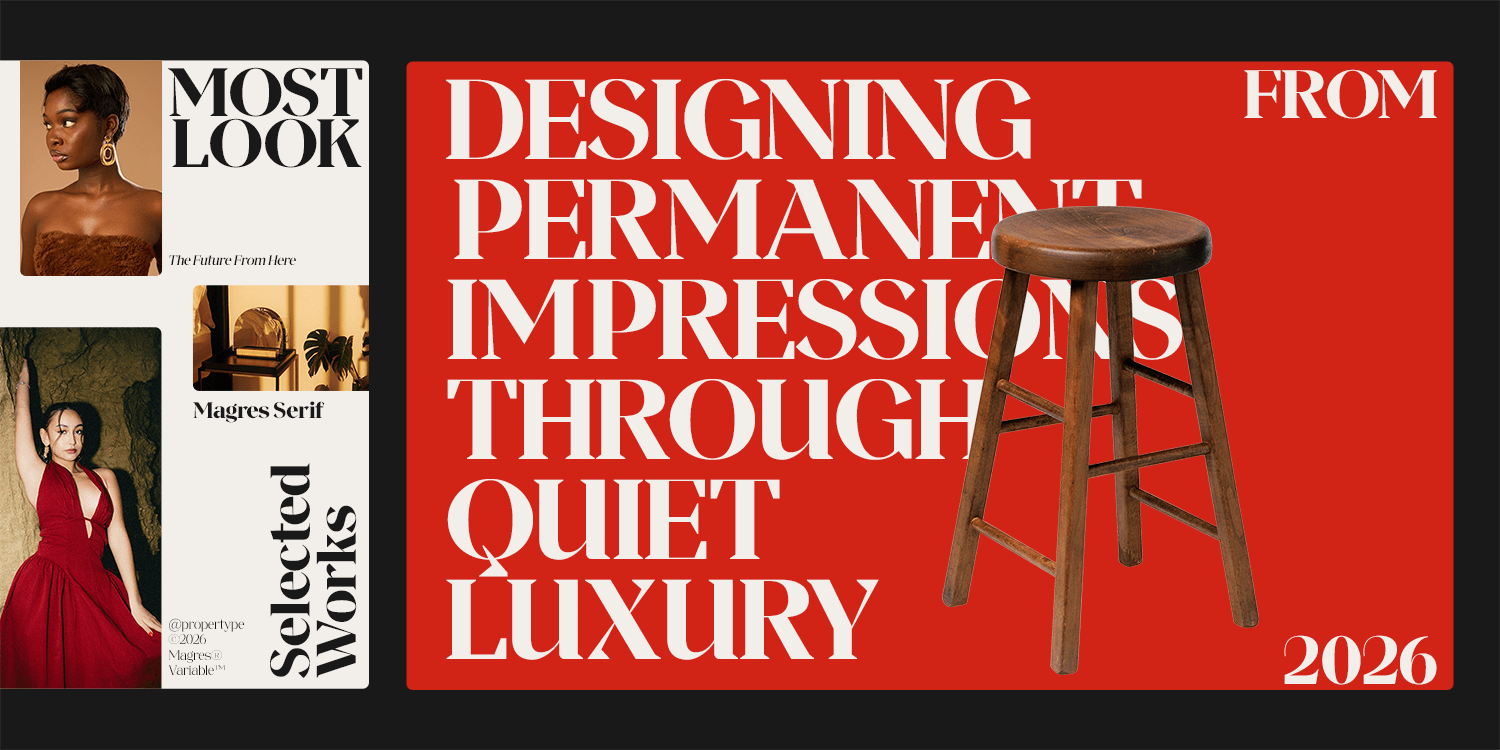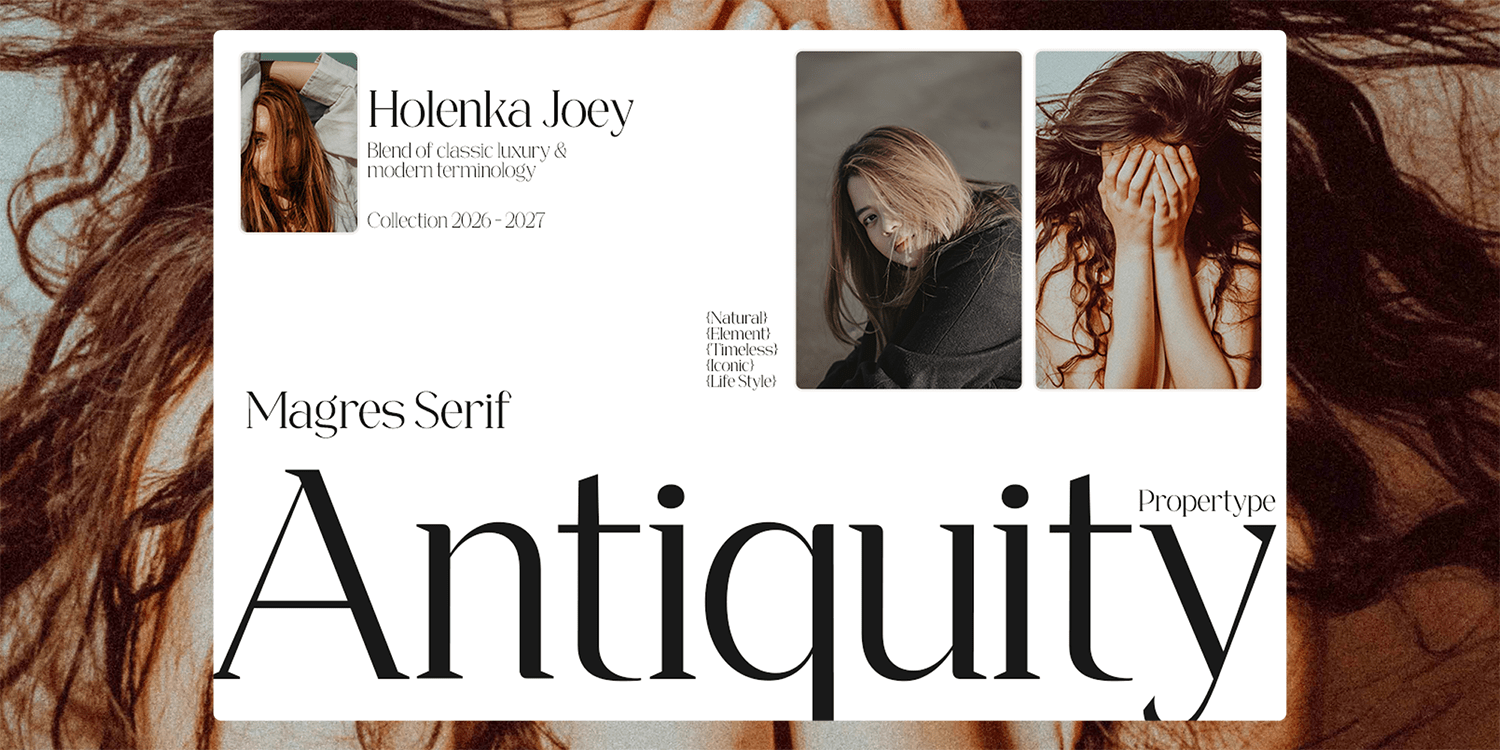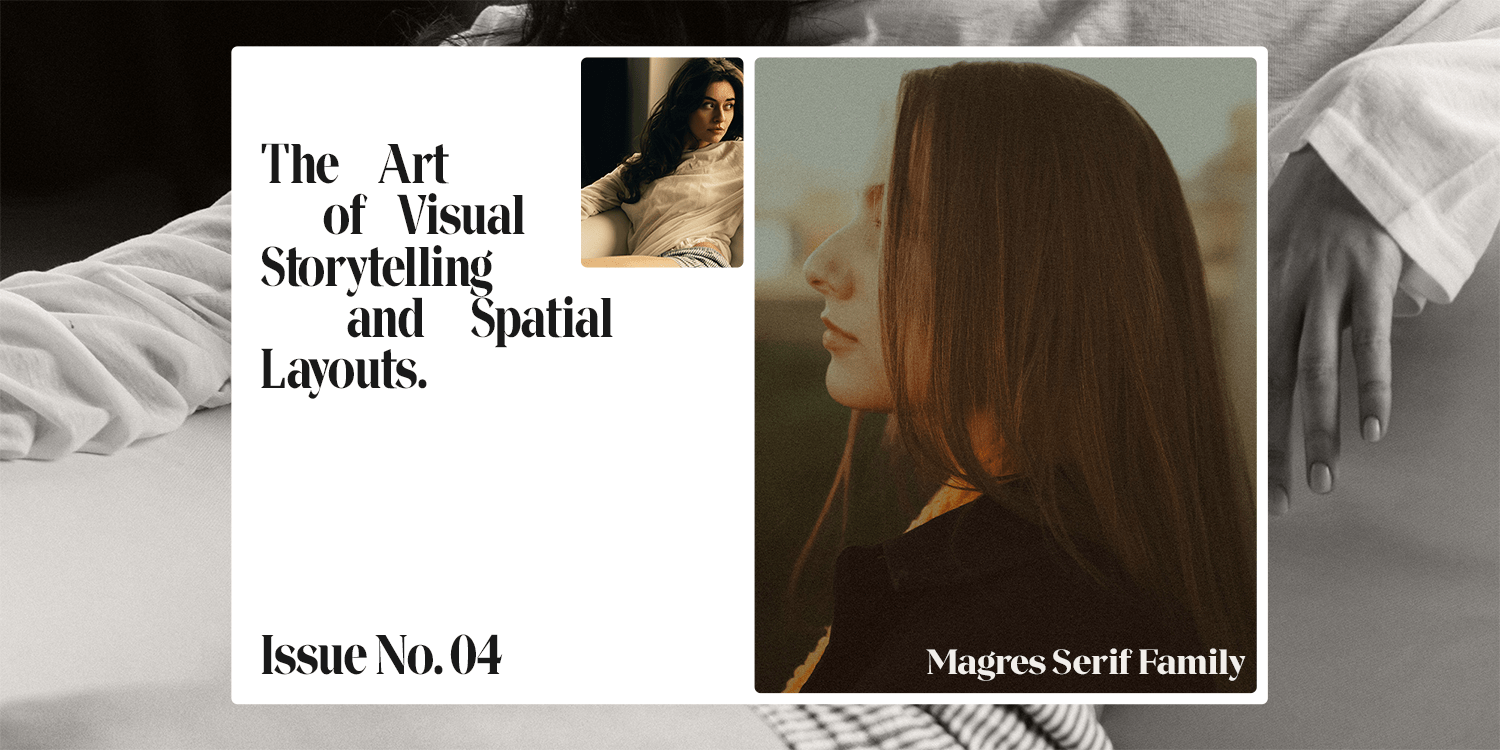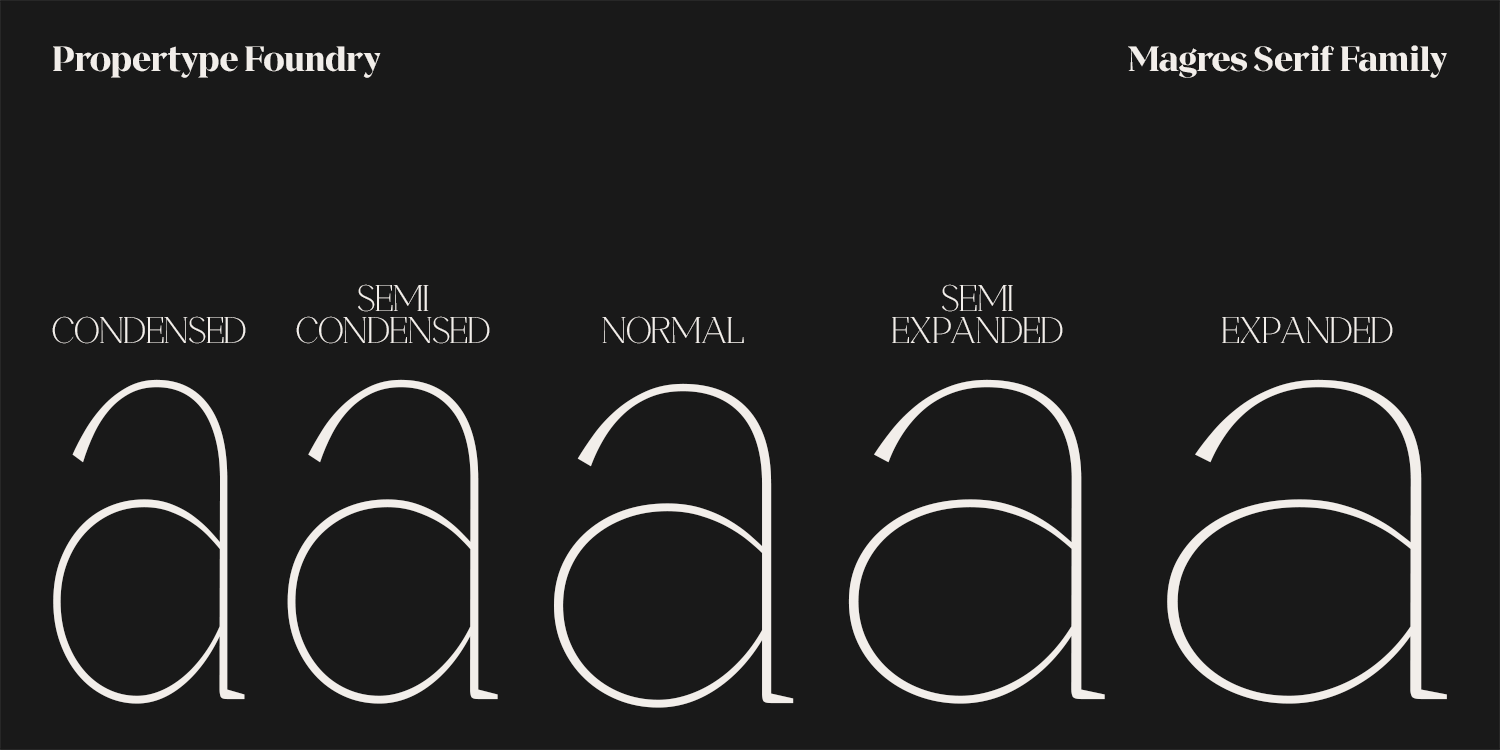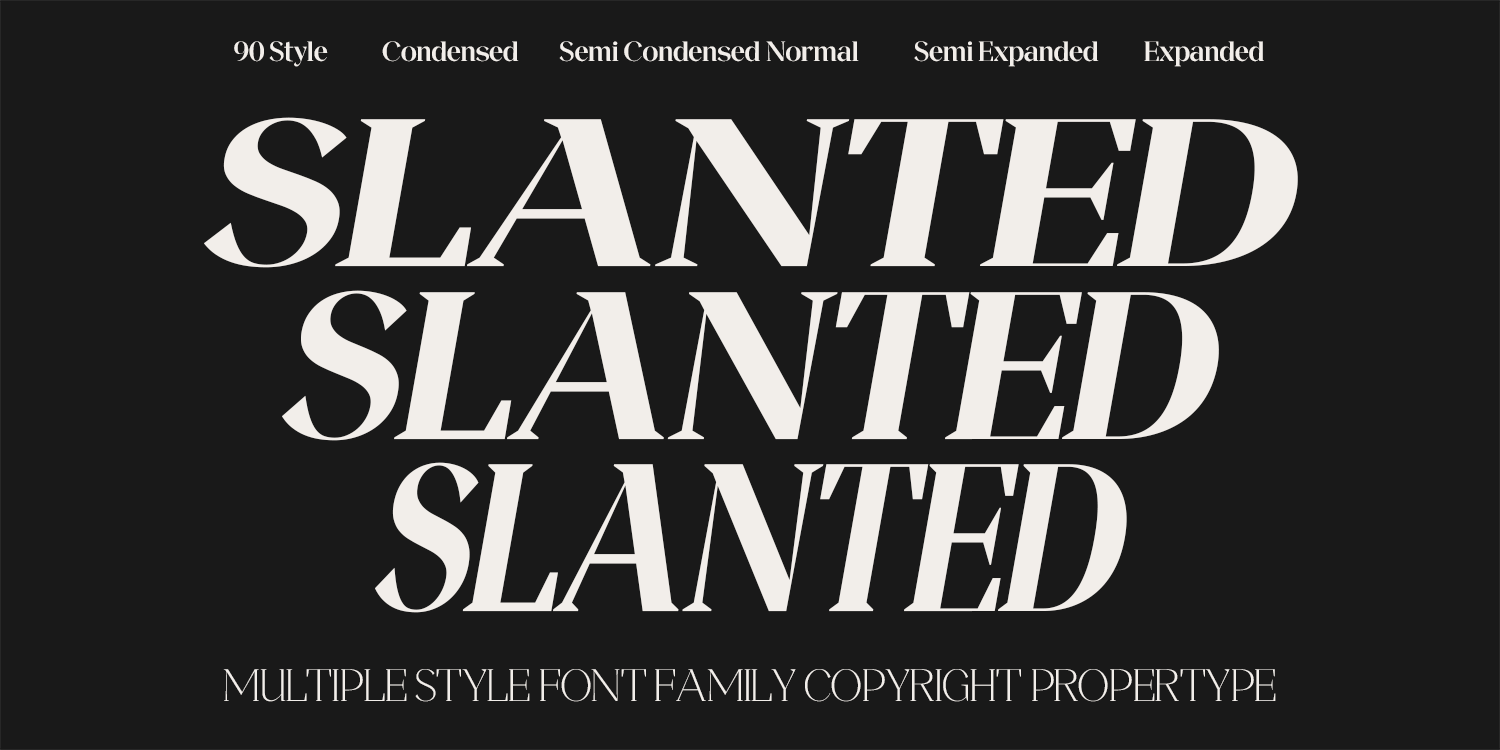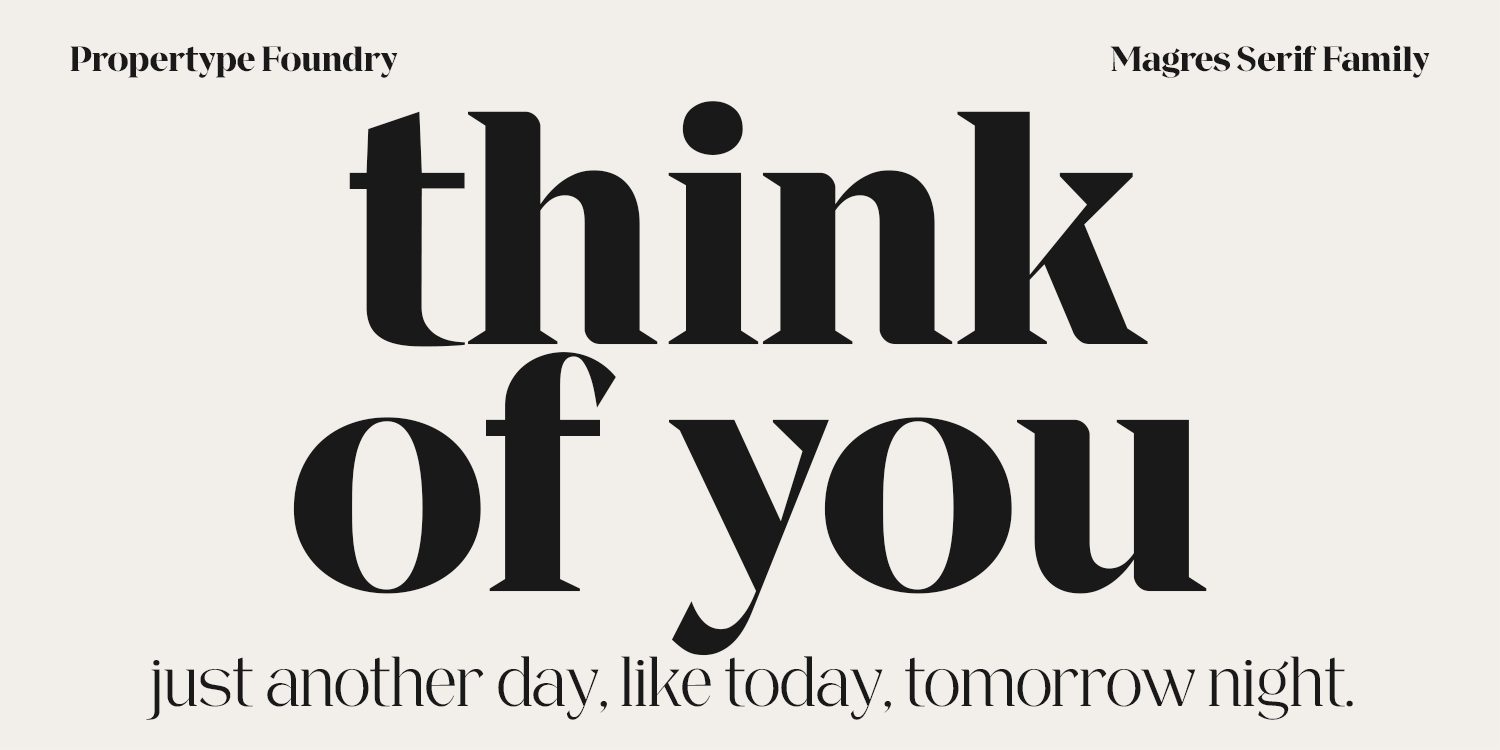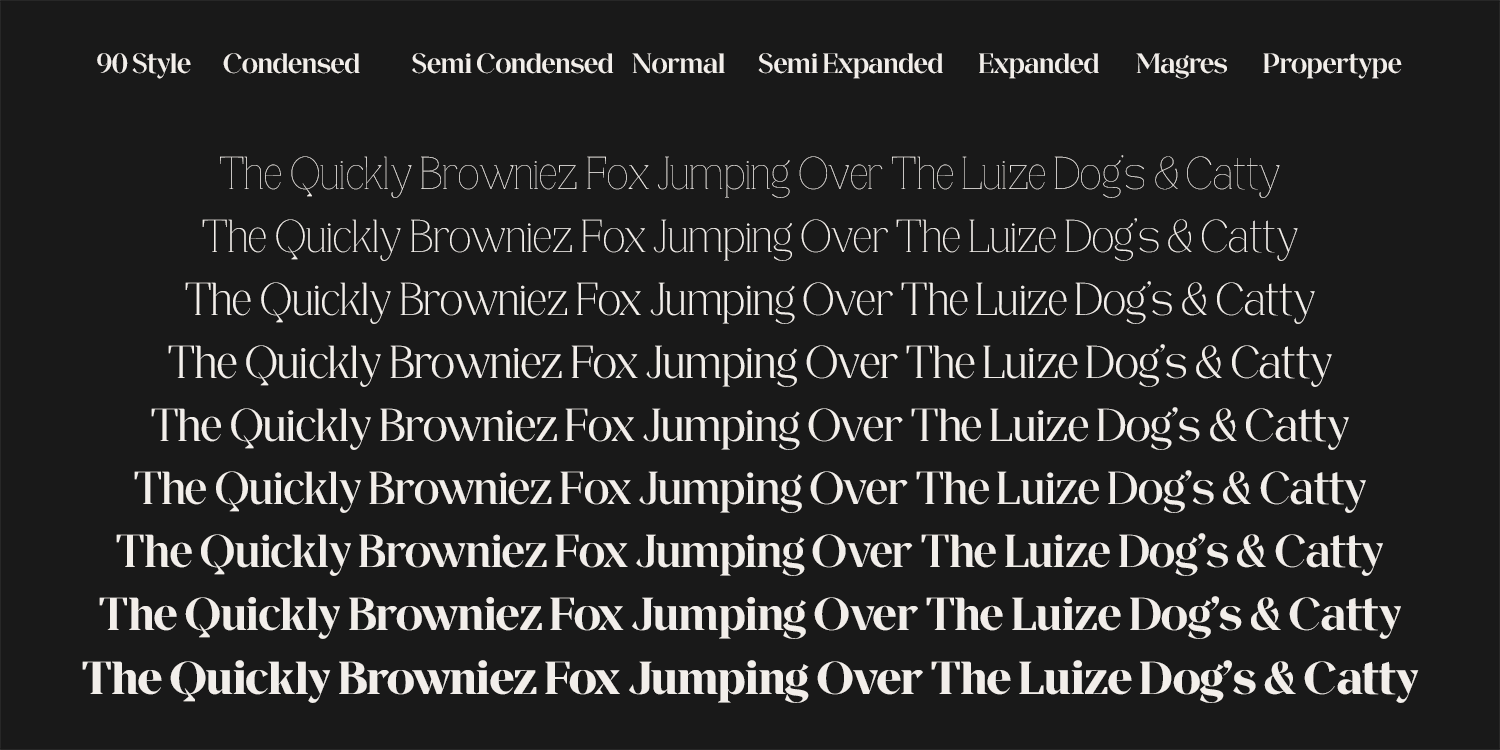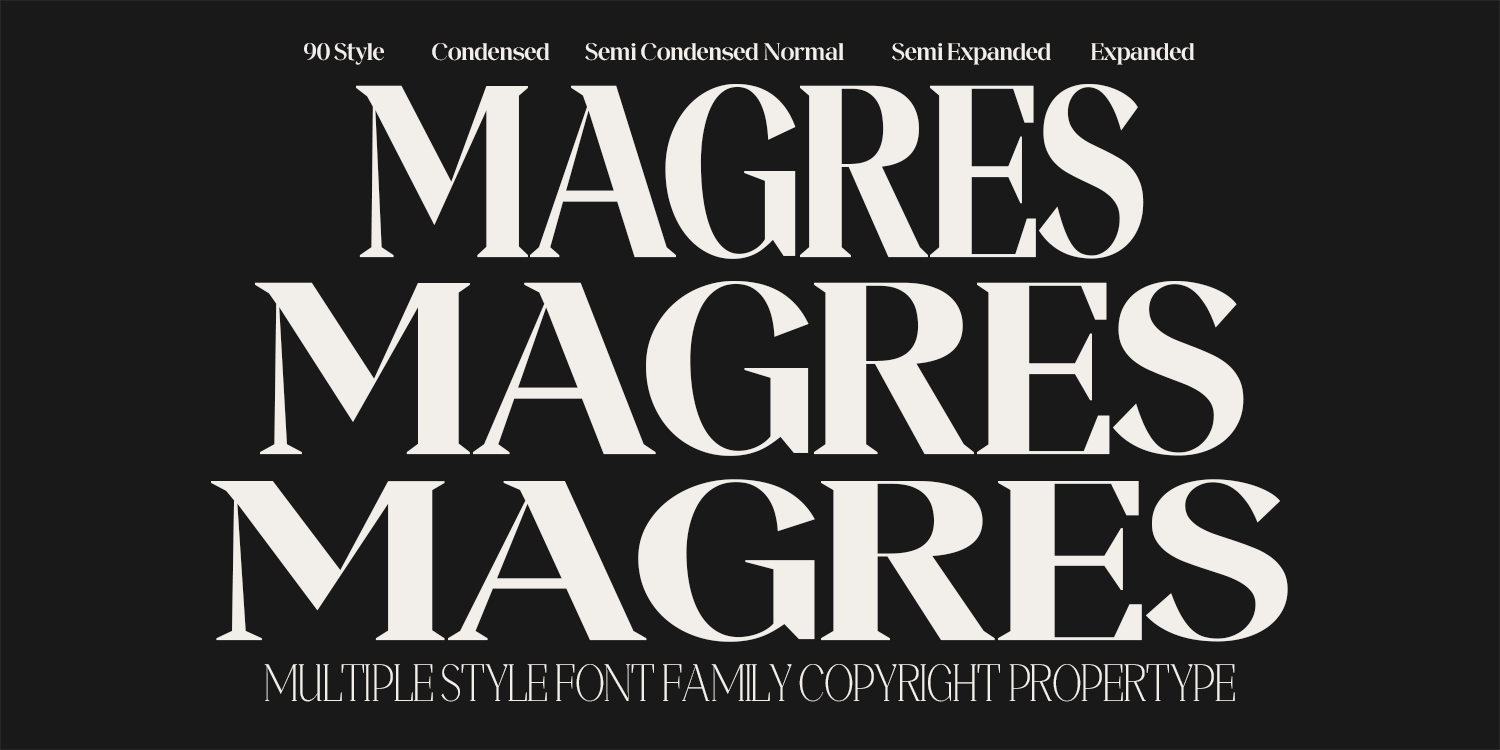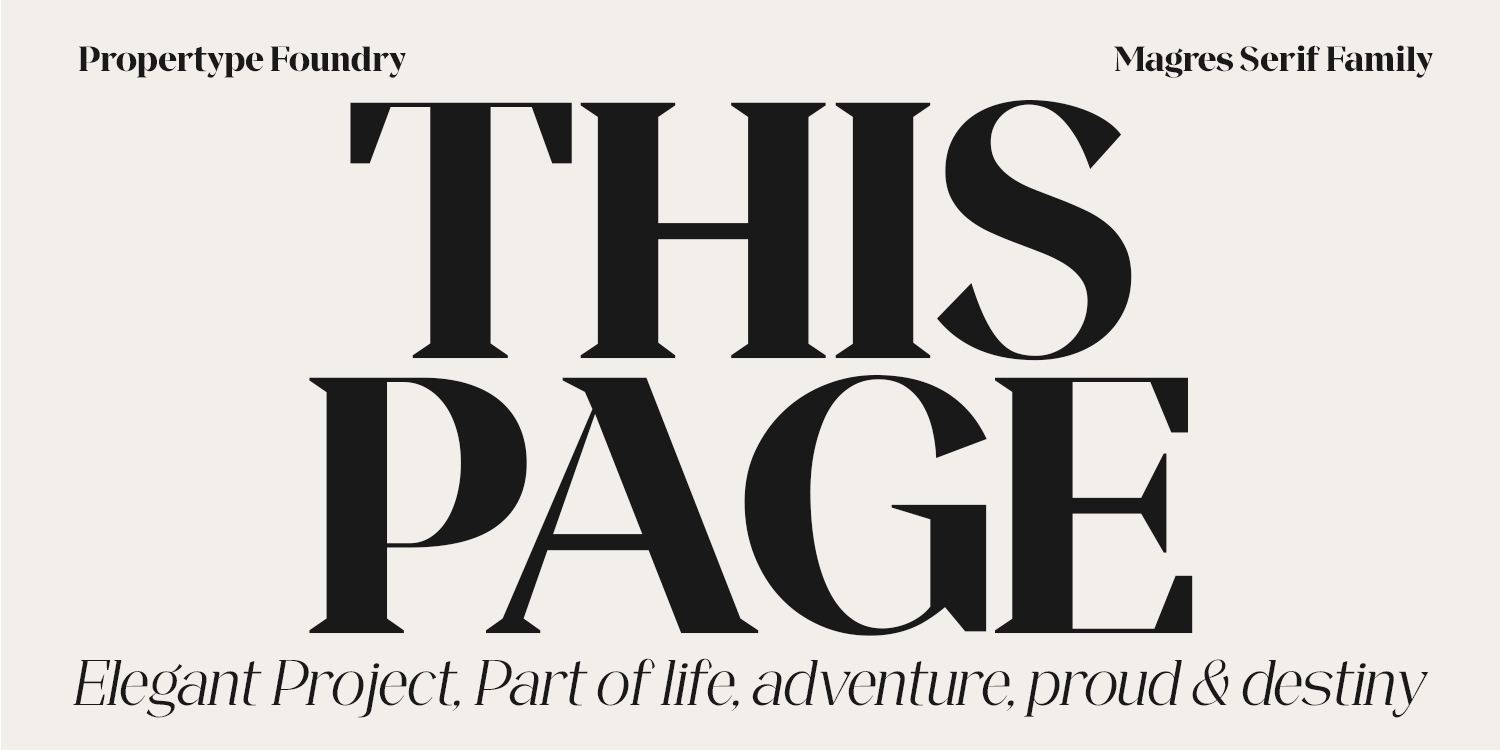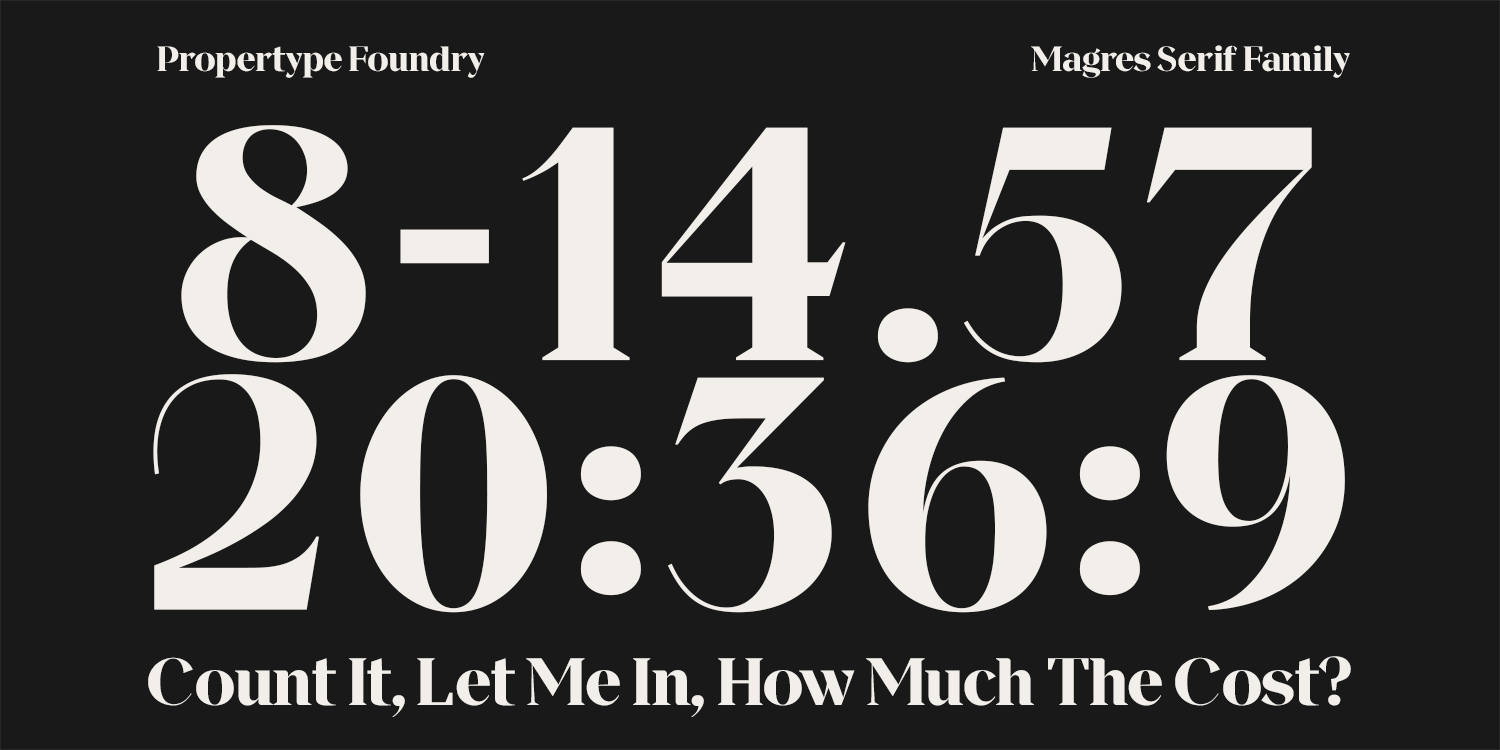
Magres
Magres is a variable serif typeface that combines bold contrast, precise ink capture, sharp letterforms, and clean cuts to create a luxurious, elegant, and distinctive look. Its modern aesthetic is combined with a warm touch, making it an ideal choice for a variety of design needs, both expressive and professional.
Magres serif is ideal for a variety of creative needs, such as branding, visual identity, logo design, editorial design, product packaging, promotional materials, display typography, web design, and a variety of other print and digital applications.
Magres is meticulously designed to provide a premium typographic experience, giving designers the freedom to create memorable, modern, and timeless work.